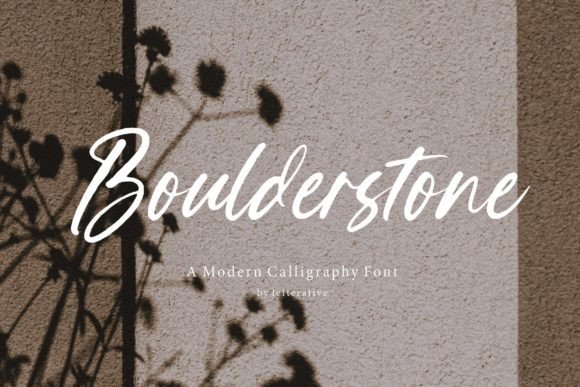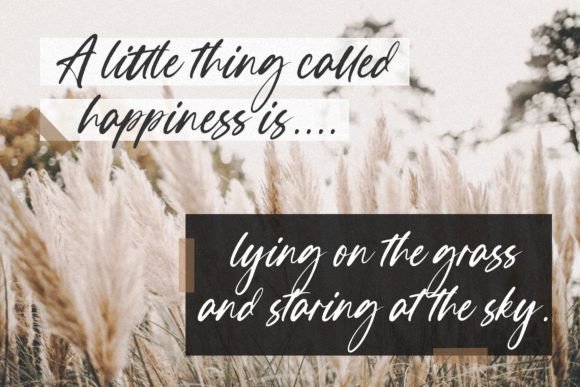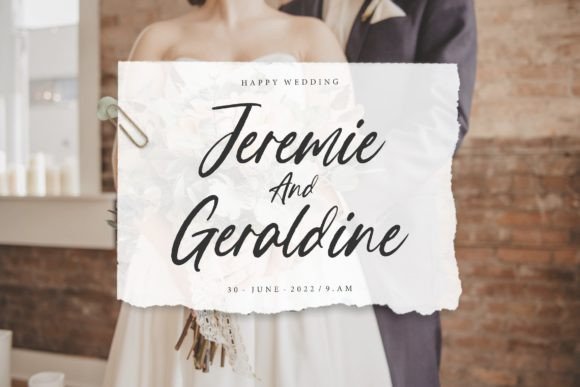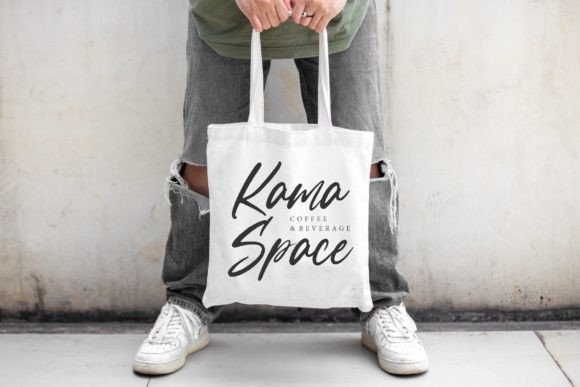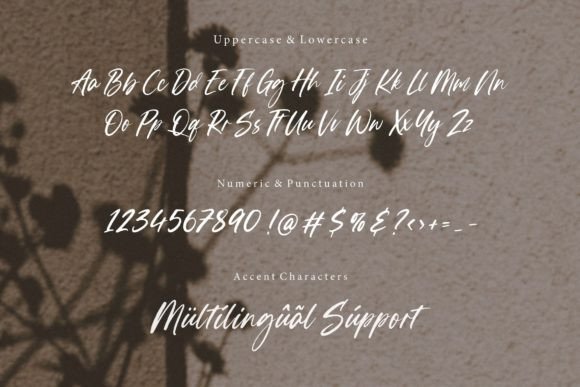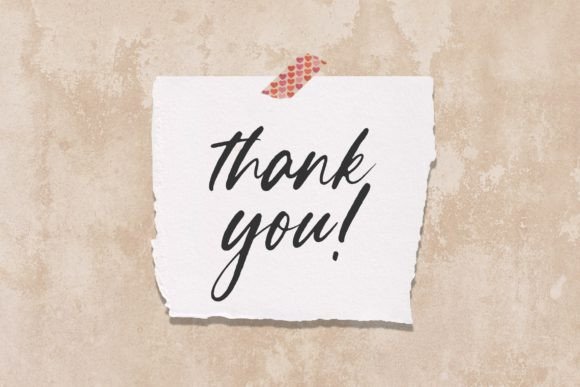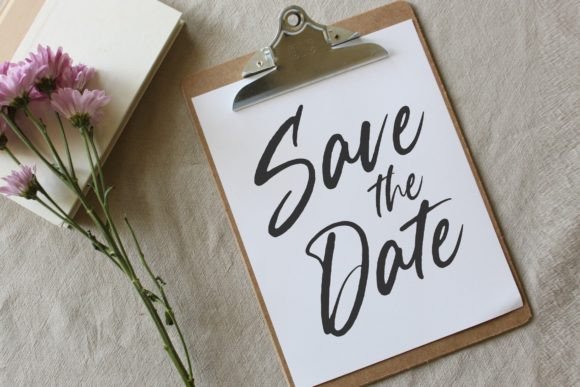
Boulderstone Font
About Boulderstone Font
Presenting Boulderstone, a modern calligraphy font that seamlessly combines uniqueness and elegance. This handwritten font is not just a typeface; it’s a distinctive and personalized style that adds a touch of beauty to a variety of designs.
Boulderstone is crafted to enhance the visual appeal of your projects, making it an ideal choice for occasions that demand a personalized touch. Whether you’re designing wedding invitations, expressing gratitude with thank you cards, creating warm greeting cards, or developing a unique logo, Boulderstone shines as a font that brings a sense of charm and sophistication.
The beauty of Boulderstone lies in its versatility. It adapts gracefully to various design contexts, making it a valuable asset for designers working on a range of creative projects. The fluid and elegant strokes of this modern calligraphy font ensure that your designs exude a sense of style and refinement.
Picture Boulderstone gracing a wedding invitation—each letter, a brushstroke of romance, contributing to a design that reflects the uniqueness of the couple. Similarly, for thank you and greeting cards, the font adds a personal touch that resonates with sincerity and warmth.
When it comes to branding, Boulderstone stands out as a choice that transcends the ordinary. Its handwritten charm creates a distinct visual identity, making your logos memorable and reflective of a bespoke aesthetic.
In essence, Boulderstone is more than just a font; it’s an artistic tool that allows you to infuse your designs with character and elegance. Explore the possibilities of this modern calligraphy font, and witness how it transforms your creative visions into visually captivating realities. Elevate your designs with the unique and elegant touch of Boulderstone.